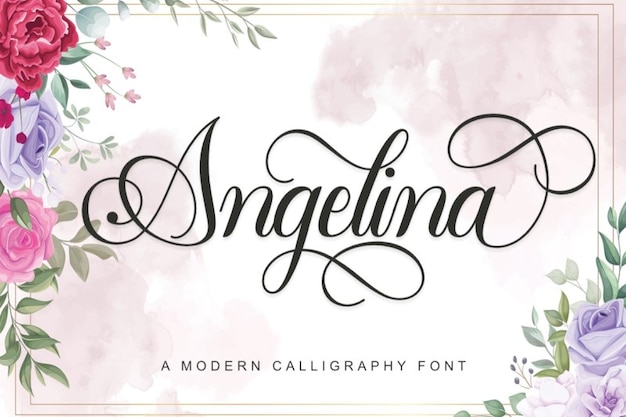
Angelina Font
Almaira Type
It's a font that marries modernity with the art of calligraphy. Its elegant, flowing letterforms evoke a sense of timeless beauty. Whether used for invitations, branding, or decorative lettering, "Angelina" adds a touch of sophistication and artistry to any project. It's the perfect choice for those seeking a blend of contemporary design and the timeless allure of calligraphy.